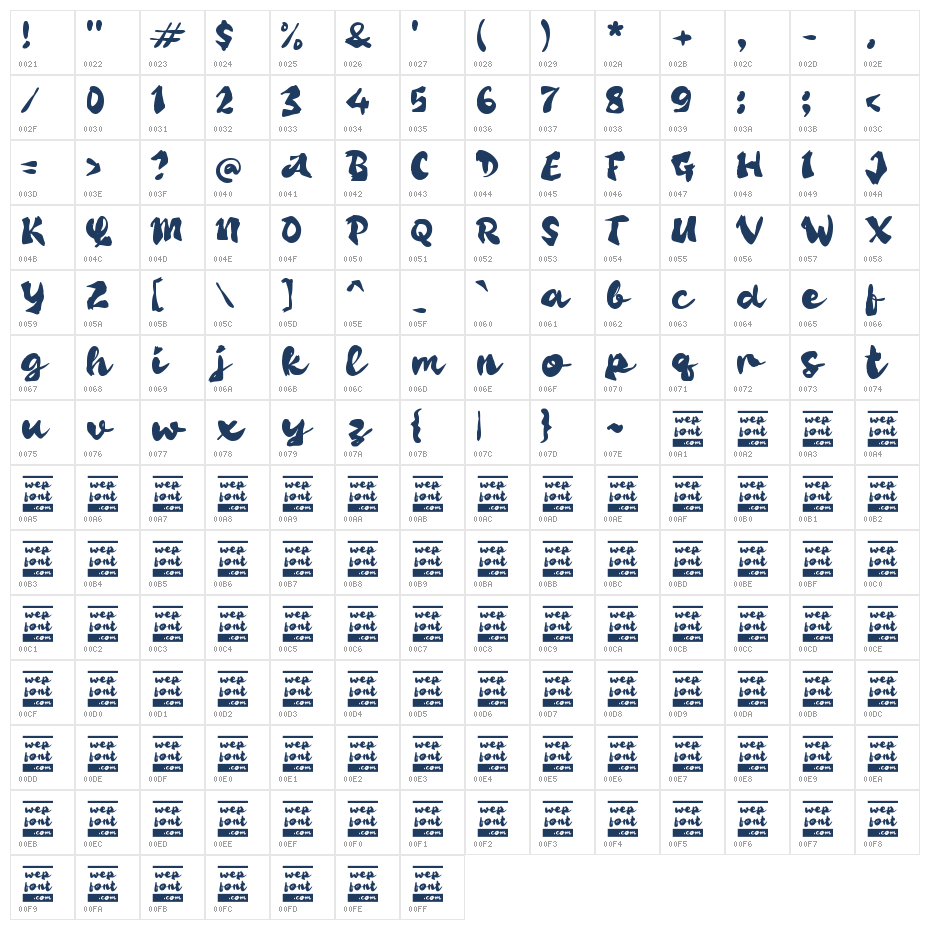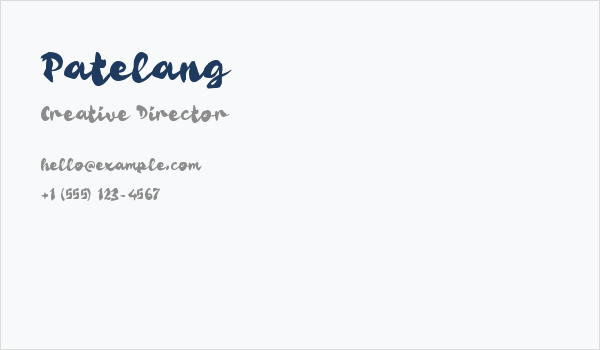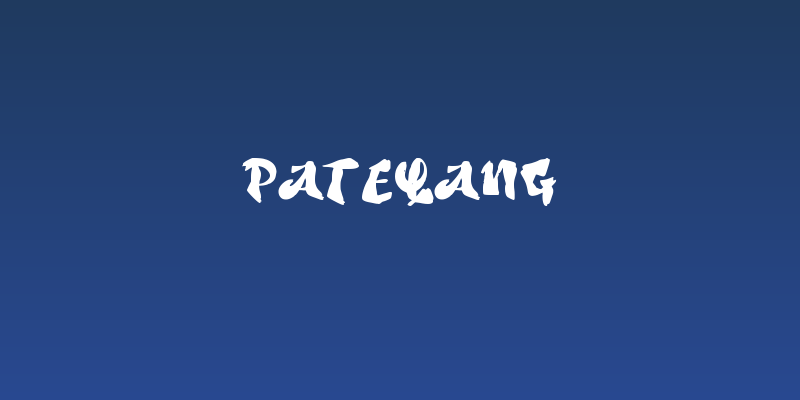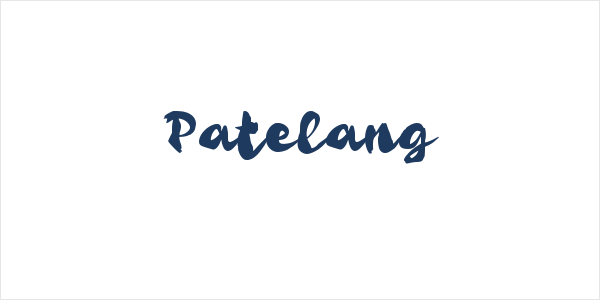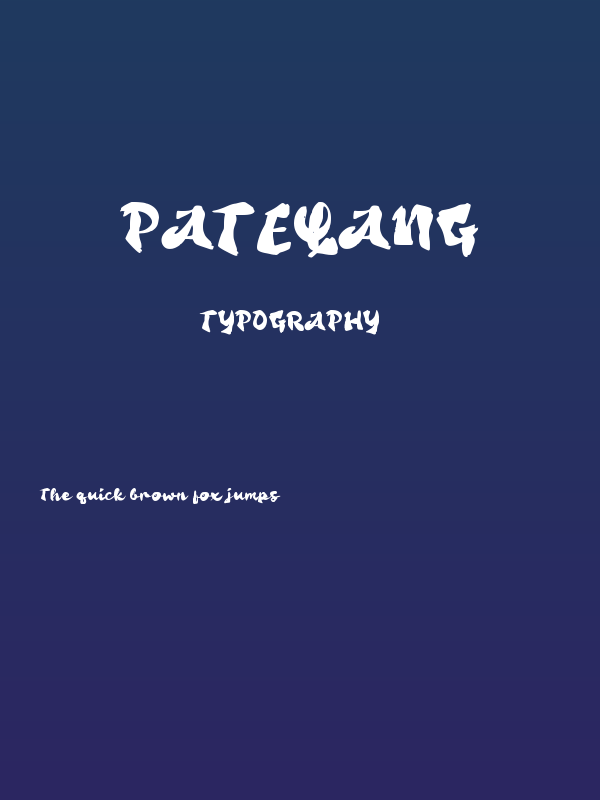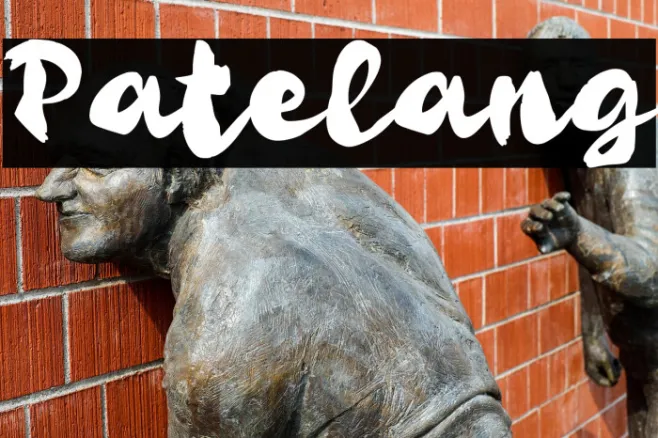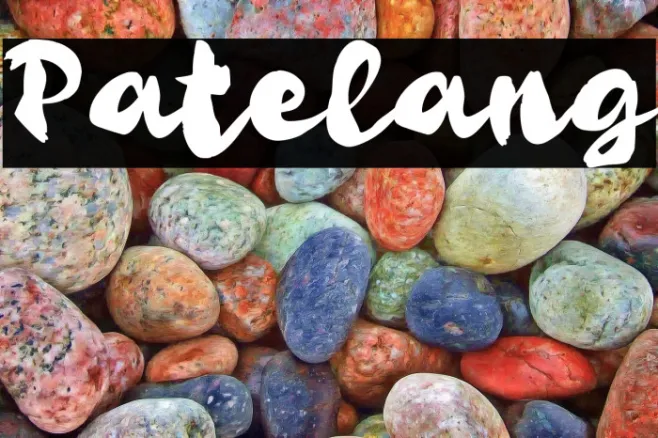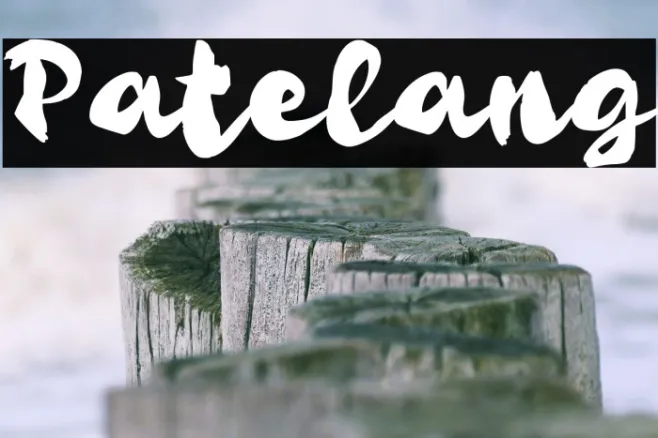
Patelang Font
Patelang Description
A bold, brushstroke style font with a casual, handwritten appearance. The characters have a slightly irregular, dynamic form with a textured, painted look.
| Overall Style | Casual, Artistic, Handwritten |
| Use Case | Headlines, Logos, Posters, Creative branding |